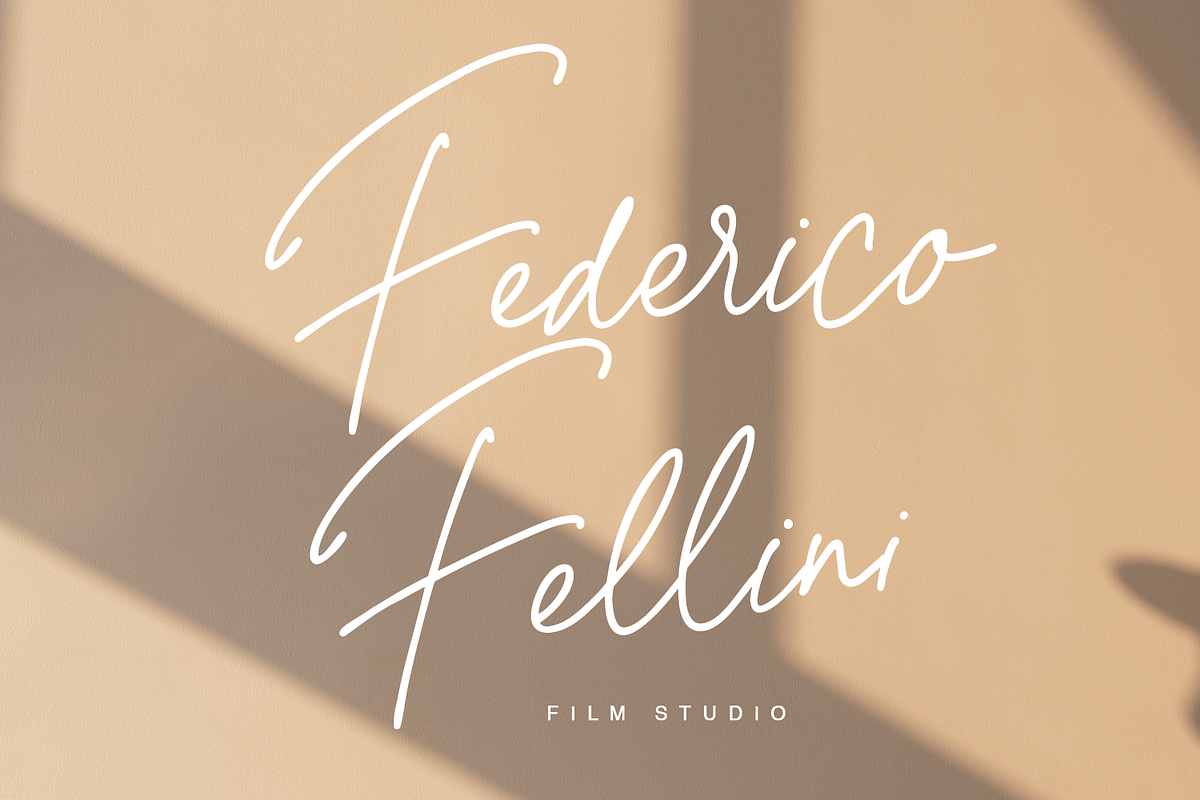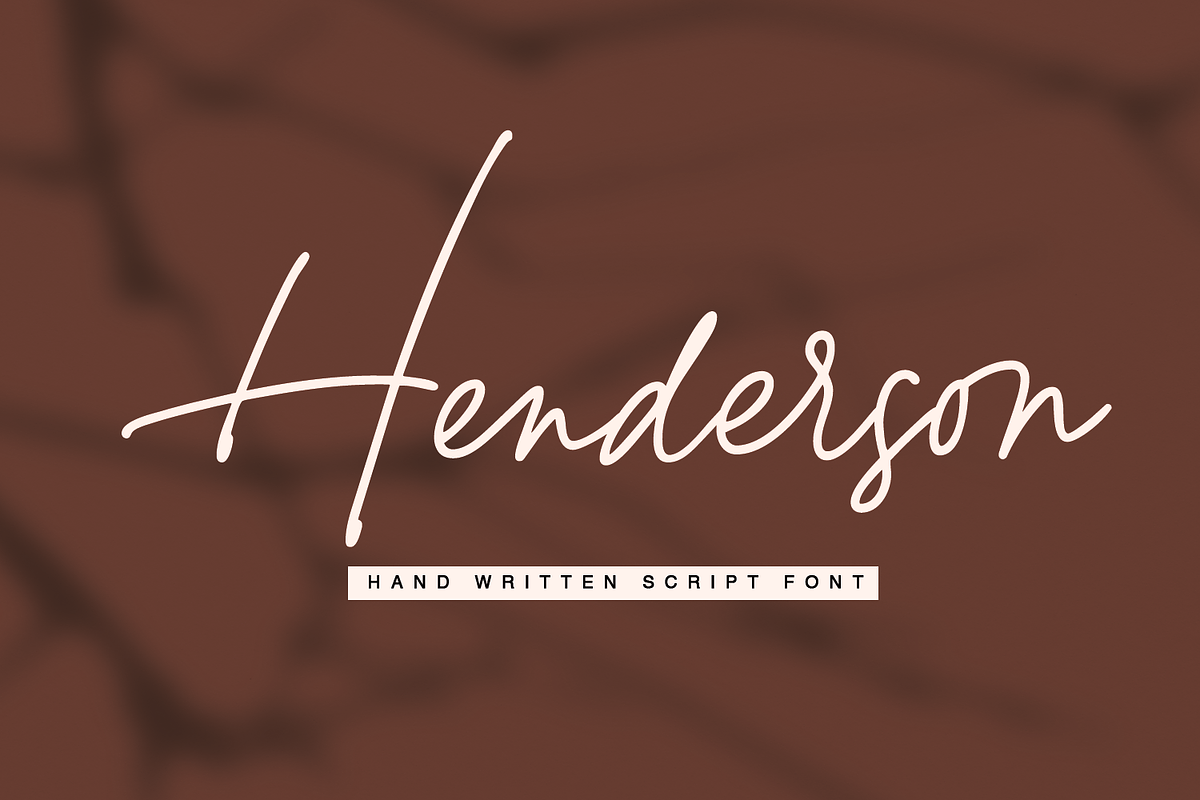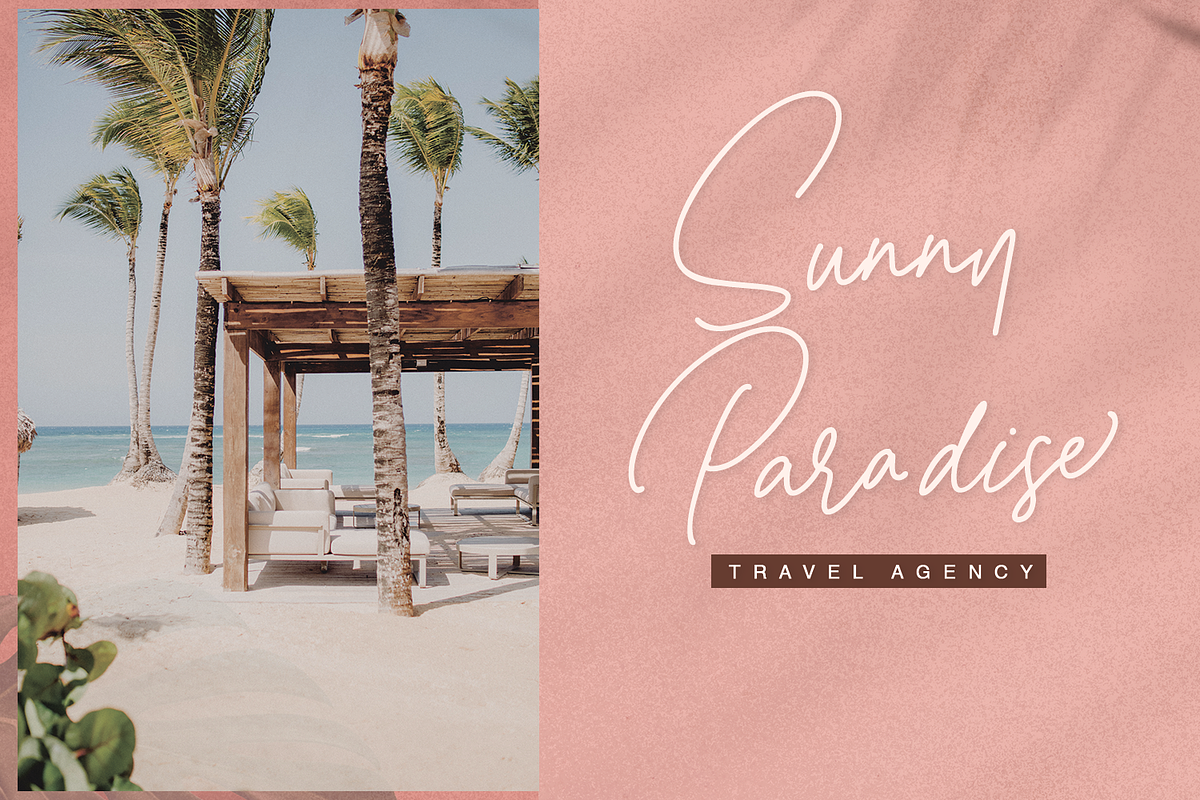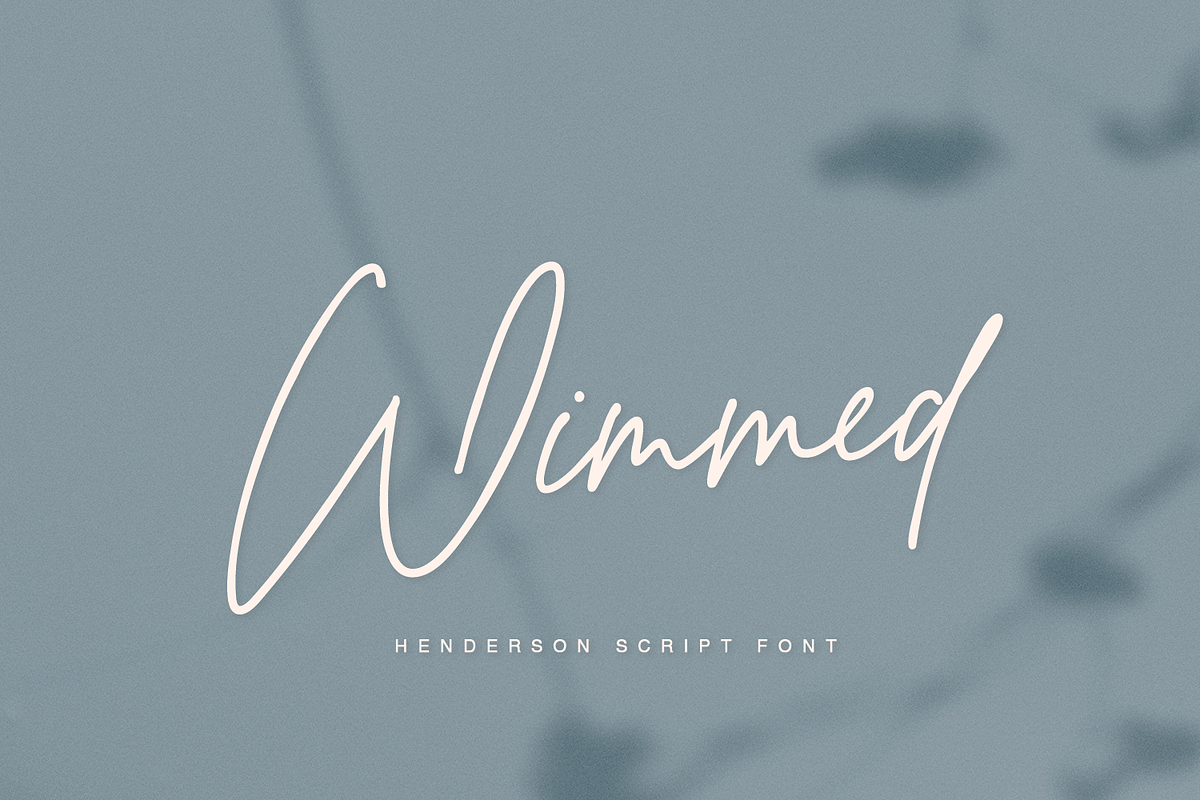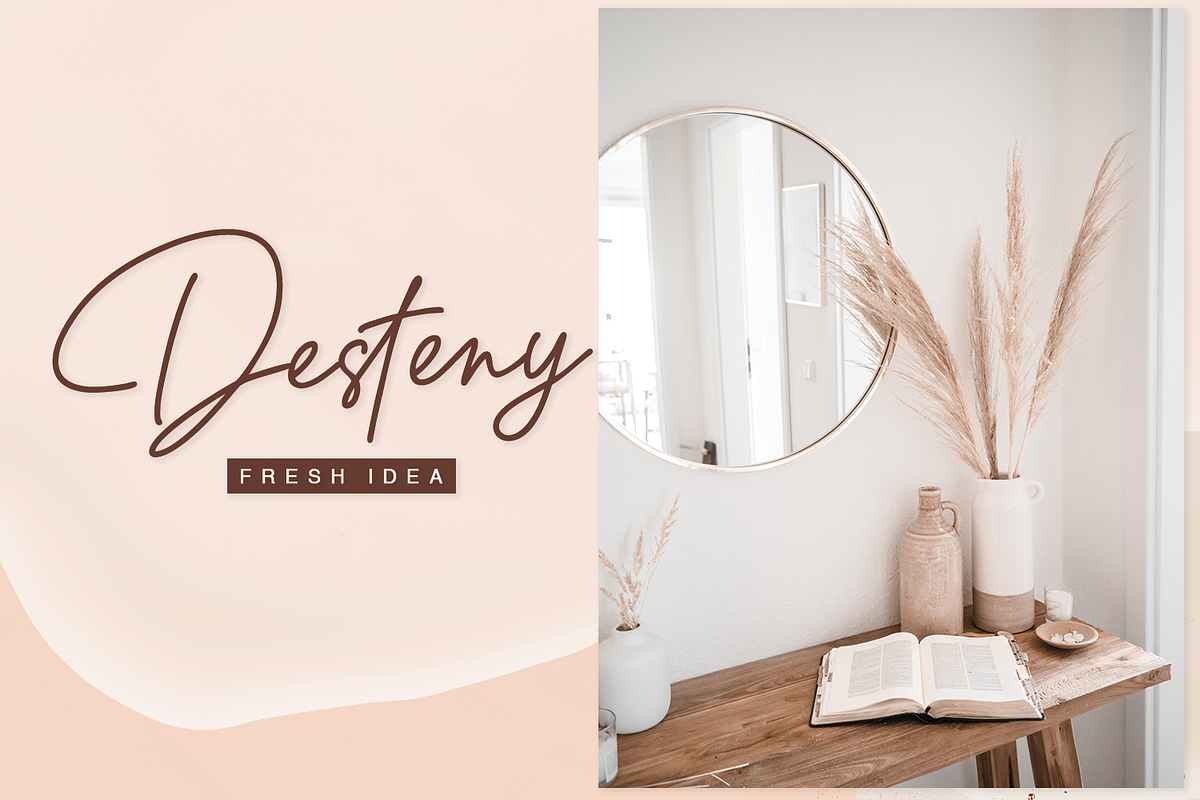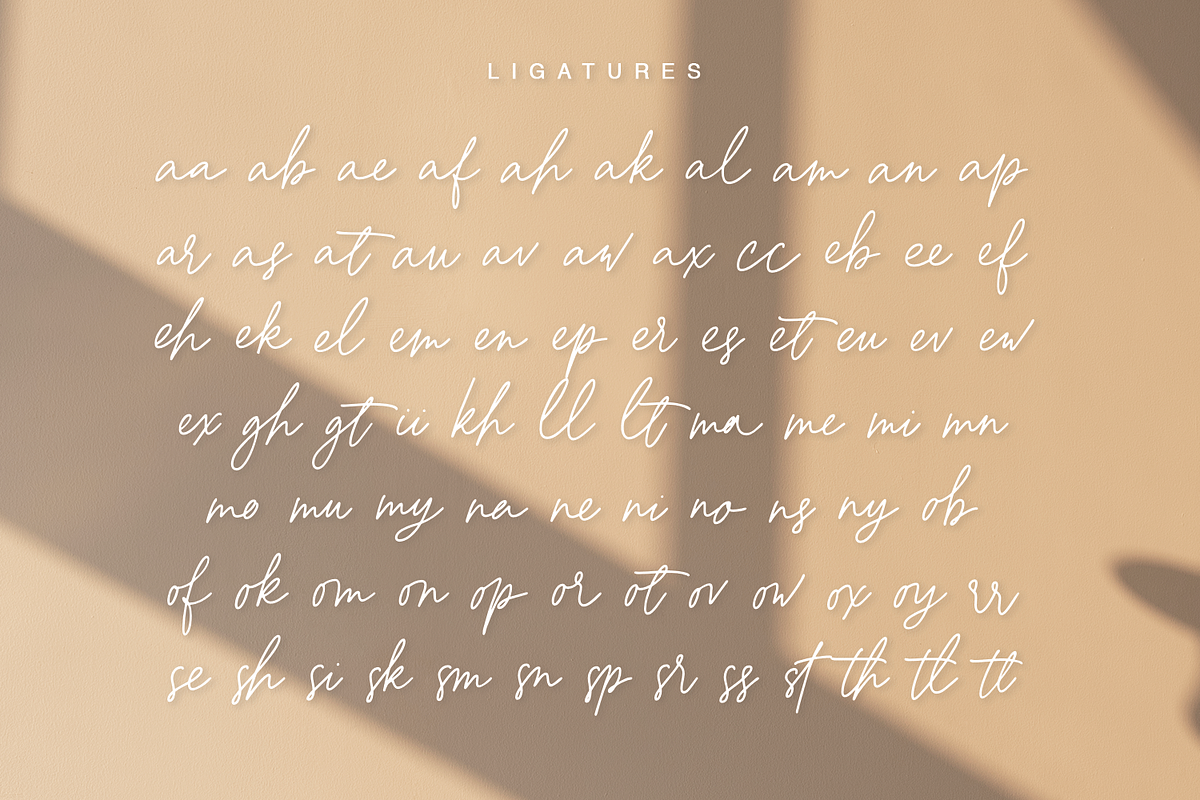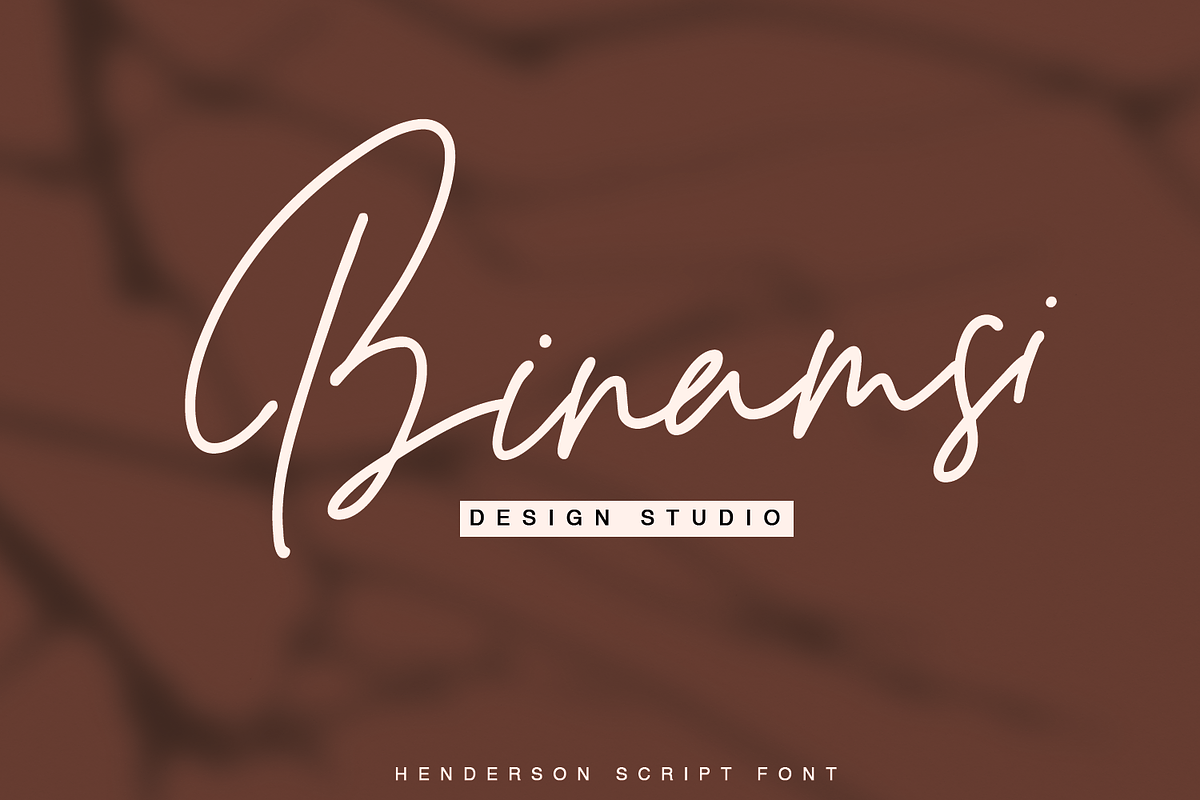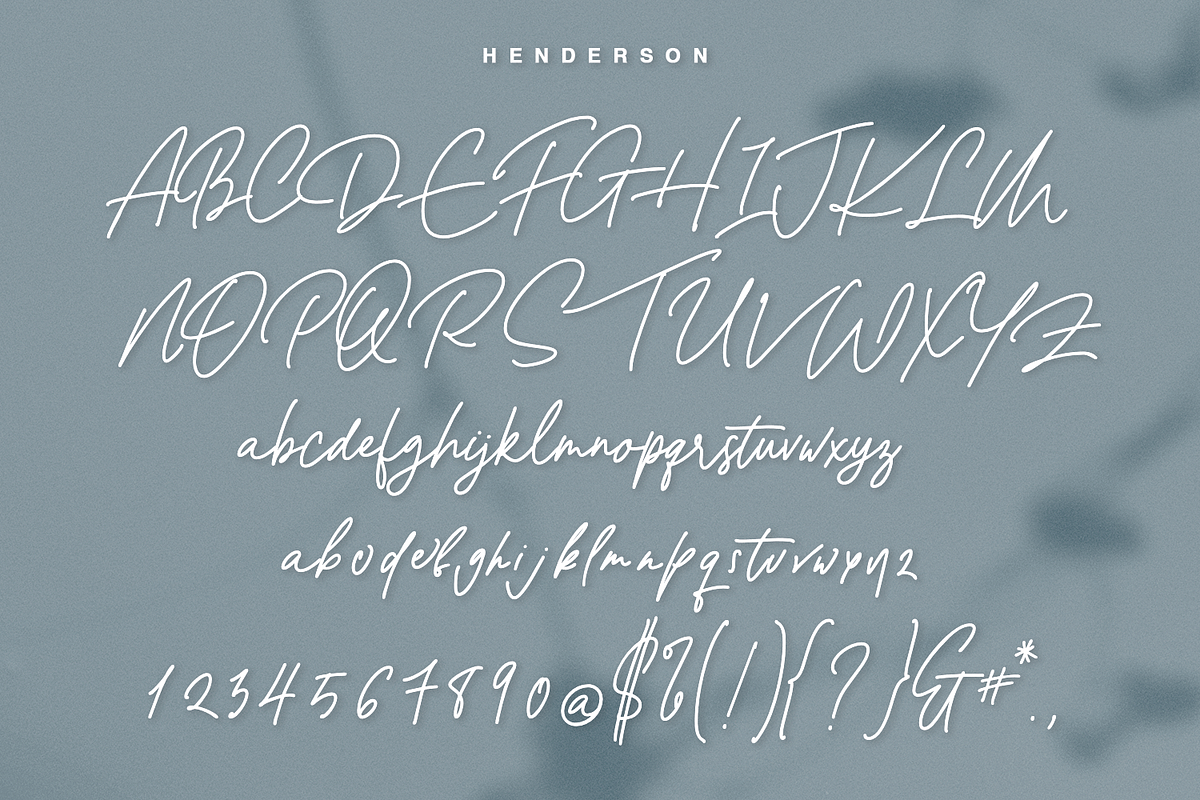
Henderson Script
Henderson - a new fresh handmade calligraphy font.
Very suitable for greeting cards, branding materials, business cards, quotes, posters, and more!This font are perfect for wedding postcard. Or you can create perfect and unique design of your logo, blog, stationery, marketing, magazines and more :)
Ligatures , Alternates